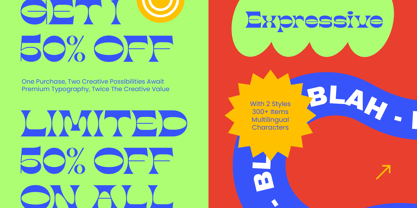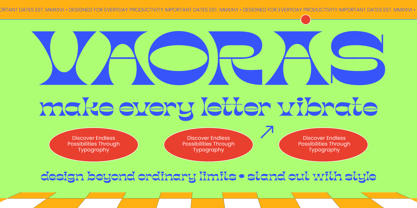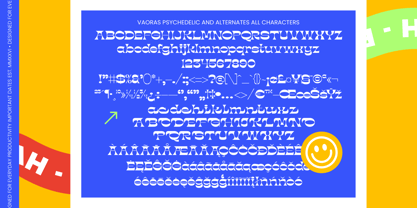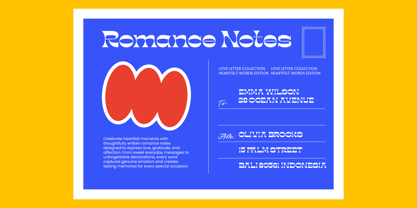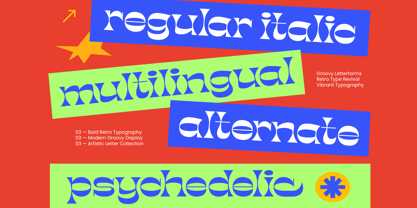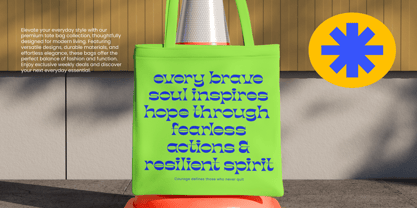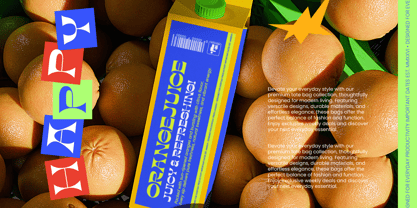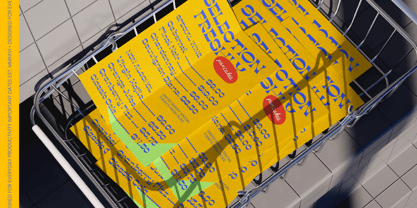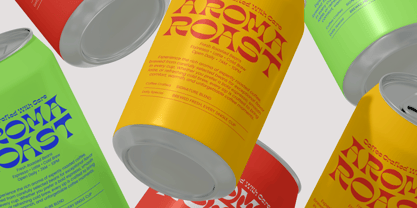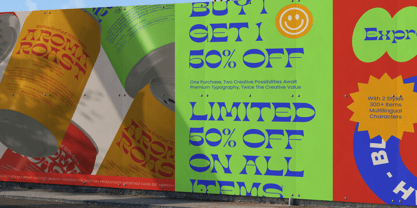
Vaoras
La famille de polices Vaoras a été conçue par Heru Utama Putra et publiée par Timelesstype Studio. Vaoras contient 2 styles et options de package familial. En savoir plus sur cette famille
Experience a stunning revival of the groovy era with Vaoras - Psychedelic Display Font, a typeface designed to break the mold of standard typography. Its liquid curves and high-contrast letterforms evoke a sense of fluid movement, making it the perfect choice for designers looking to inject vibrant energy into their work. This retro-inspired display face balances nostalgic charm with a clean, contemporary edge, ensuring your headlines stand out with an unmistakable bold presence.